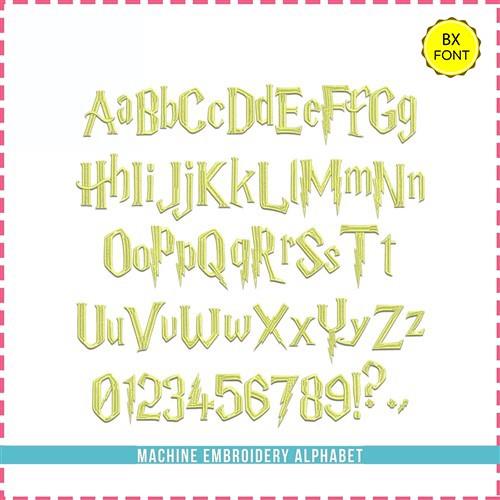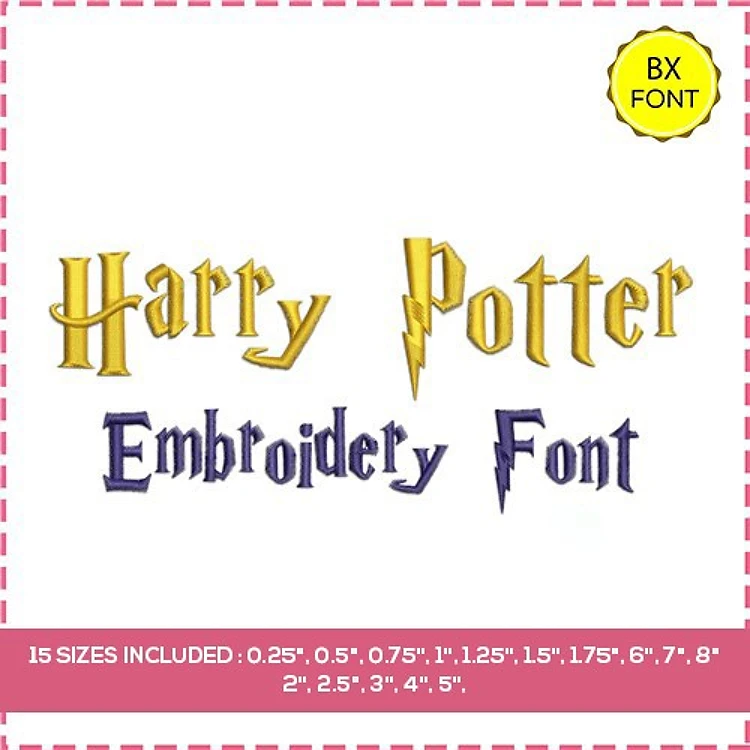
Maya Kreations is happy to present Wizard Font machine embroidery font which has Decorative machine embroidery font inspired by the Harry Potter theme, combining bold colors and magical details, ideal for children’s clothing or themed events. Available in Embrilliance BX format. included. If you would like to view more embroidery fonts and alphabets please search our embroidery fonts page.